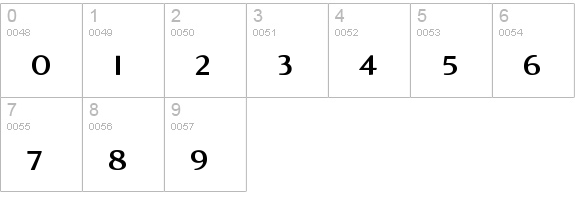
EideticModern-Bold Font Details
EideticModern-Bold is a strong, high-contrast variant in the EideticModern typeface family \xE2\x80\x94 well suited to headlines, attention-grabbing titles, and strong calls-to-action.
EideticModern-Bold is a striking and versatile font that exudes modernity and sophistication. With its bold and clean lines, this typeface is perfect for making a bold statement in any design project. Whether you are creating a poster, logo, or website, EideticModern-Bold will make your text stand out and grab attention. The best part is, EideticModern-Bold is available for free download at FontsMarket.com. This means you can enhance your designs with this stylish font without having to spend a penny. Don't miss out on the opportunity to add this sleek and professional font to your collection. Download EideticModern-Bold today and elevate your design projects to the next level.